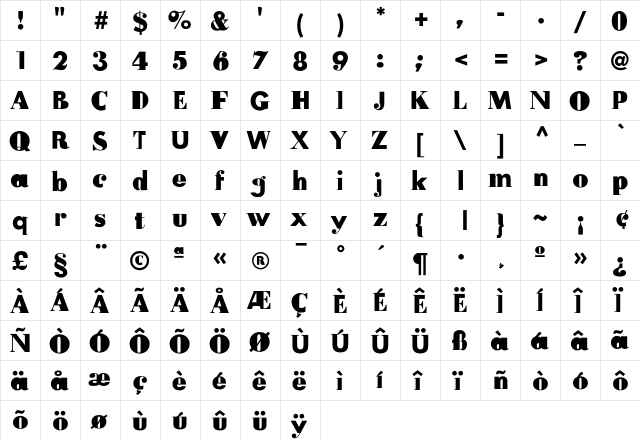
FudoniThree Regular
Design Context for FudoniThree Typeface
FudoniThree takes a measured approach to typography — its balanced proportions and neutral character make it a reliable workhorse for both digital and print work.